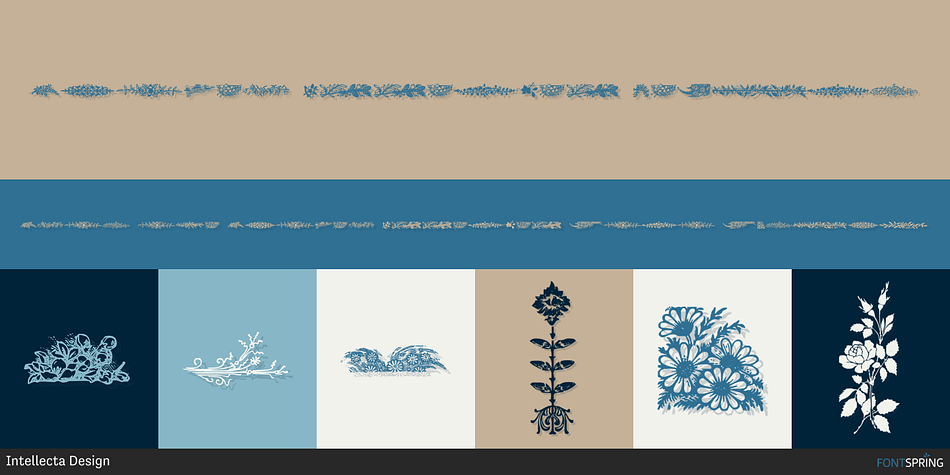
Flower Essences Medium
Designed by Paulo W, Flower Essences is a dingbat font family published by Intellecta Design.
A mix of dingbats with plants, flowers and botanical stuff